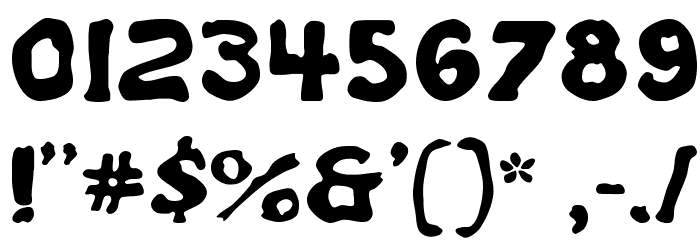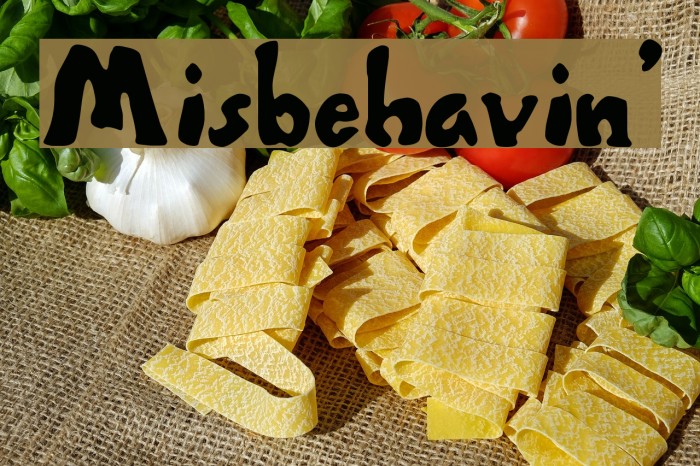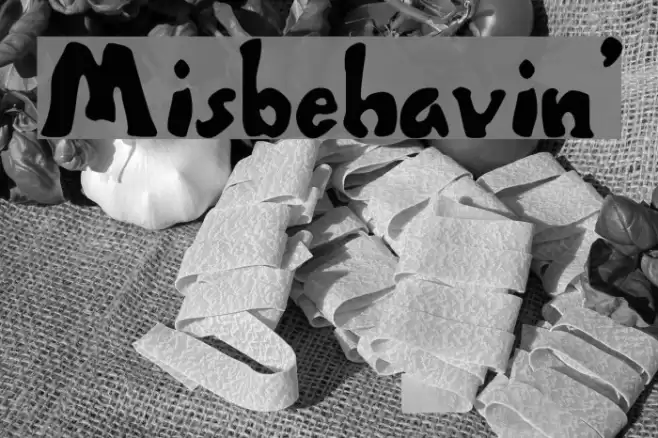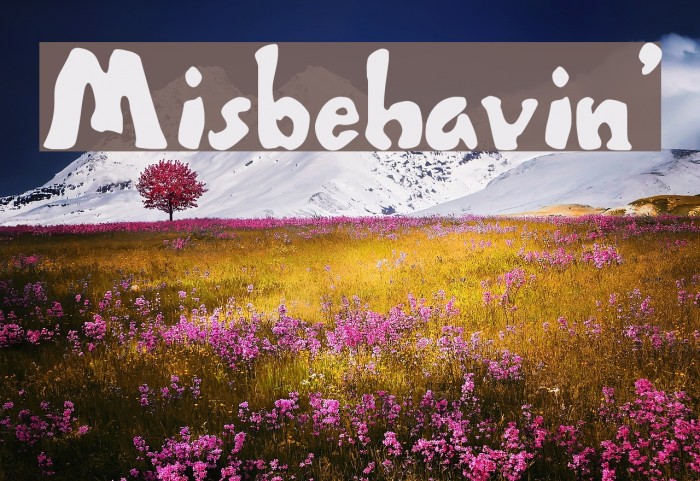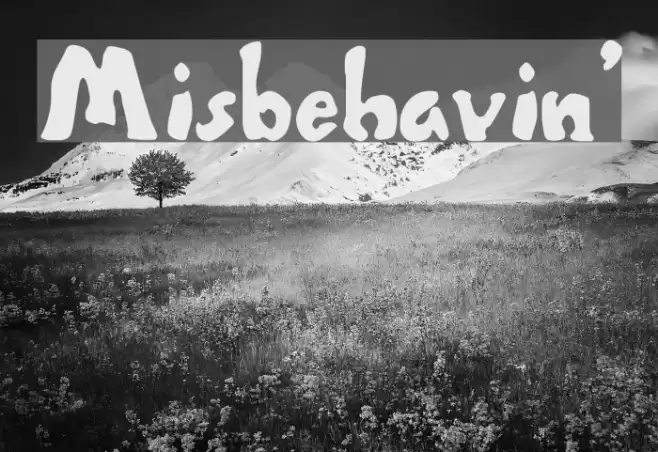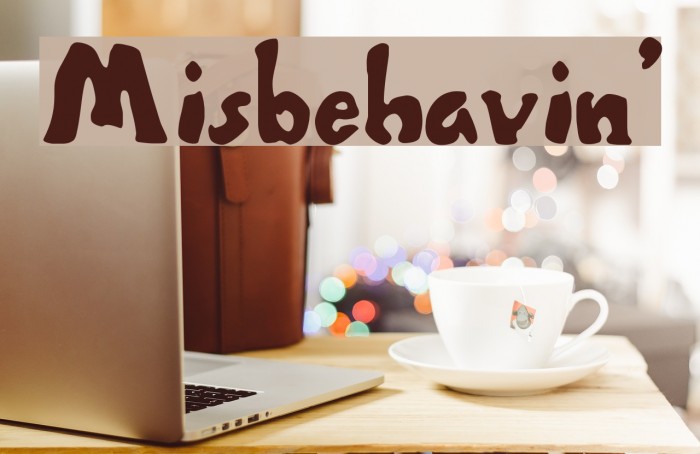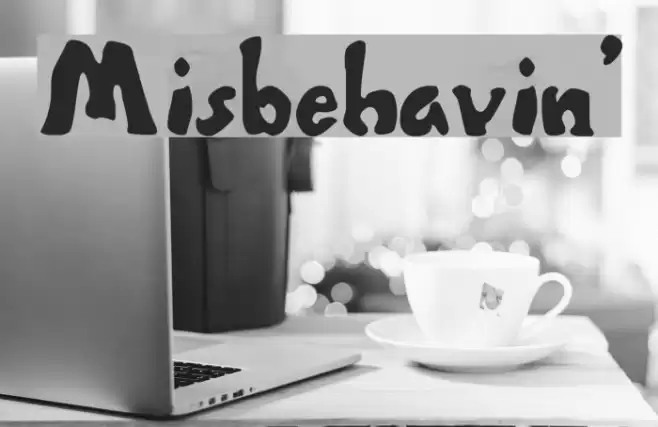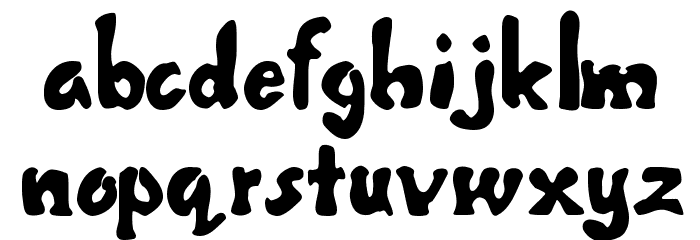
Misbehavin' Font
Misbehavin' Description
This playful and bold font features a hand-drawn, whimsical style with irregular, rounded edges and a slightly uneven baseline. The characters are thick and substantial, giving a strong visual impact. The uppercase and lowercase letters maintain a consistent style, with a casual, almost cartoonish appearance. The numbers and special characters follow the same playful design, making the font suitable for creative and informal projects. Its unique style adds a sense of fun and creativity, making it stand out in any design.
| Overall Style | Playful, Whimsical |
| Proposed Projects | Ideal for children's books, playful branding, posters, and creative projects. |